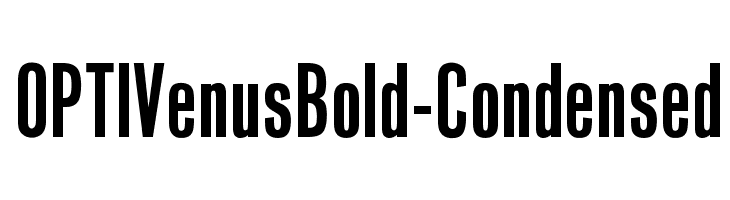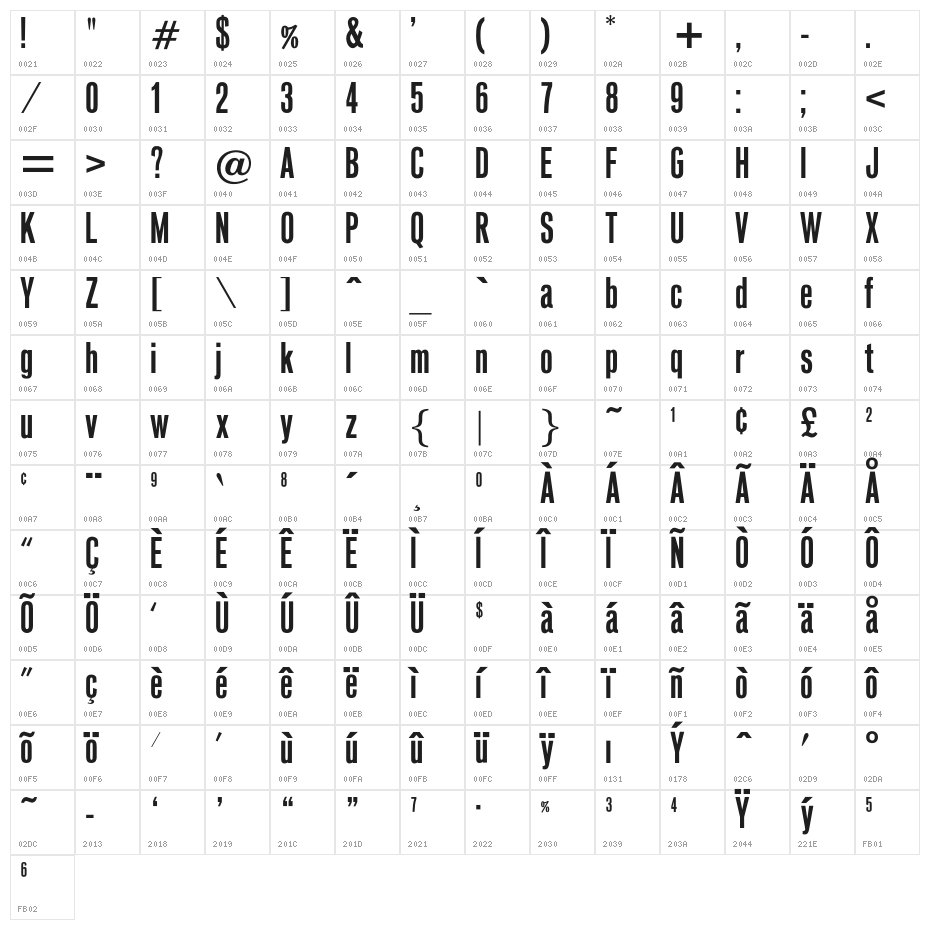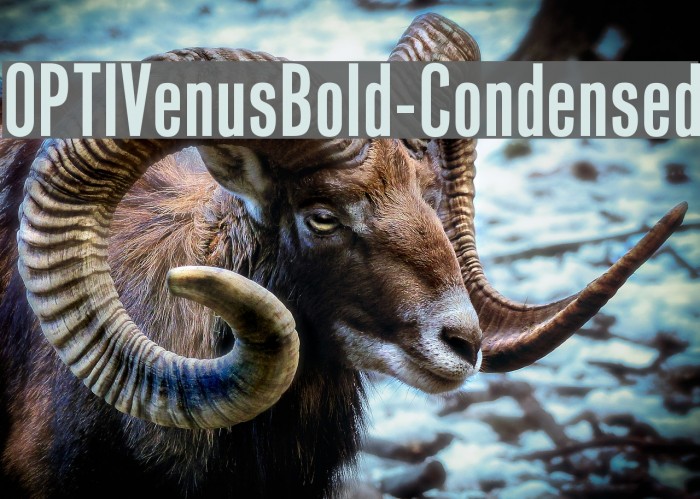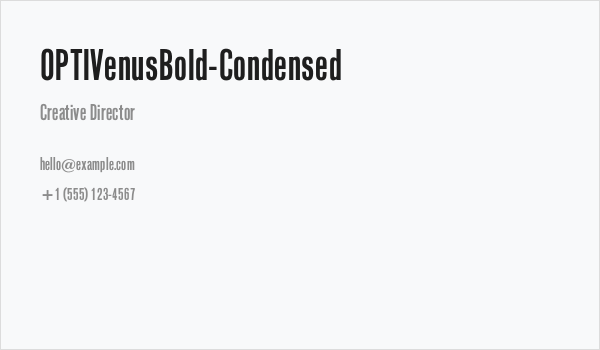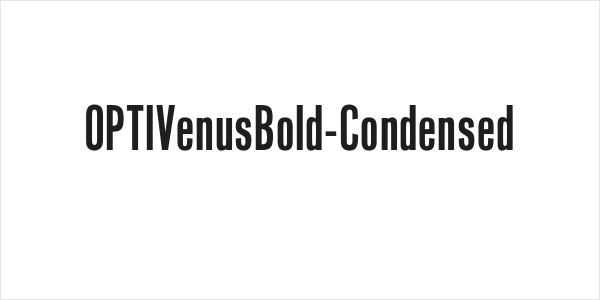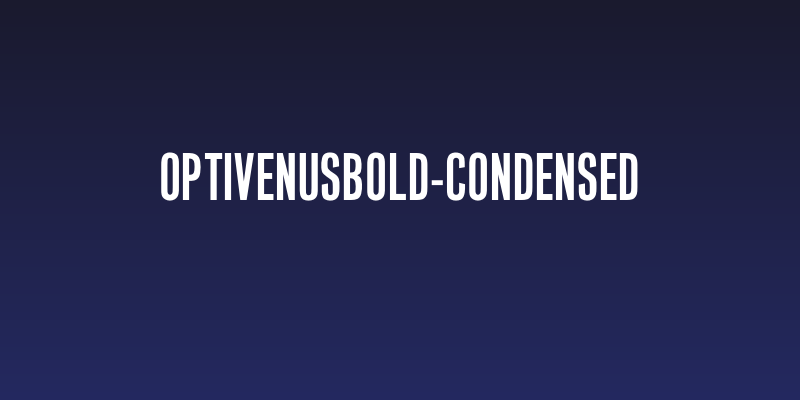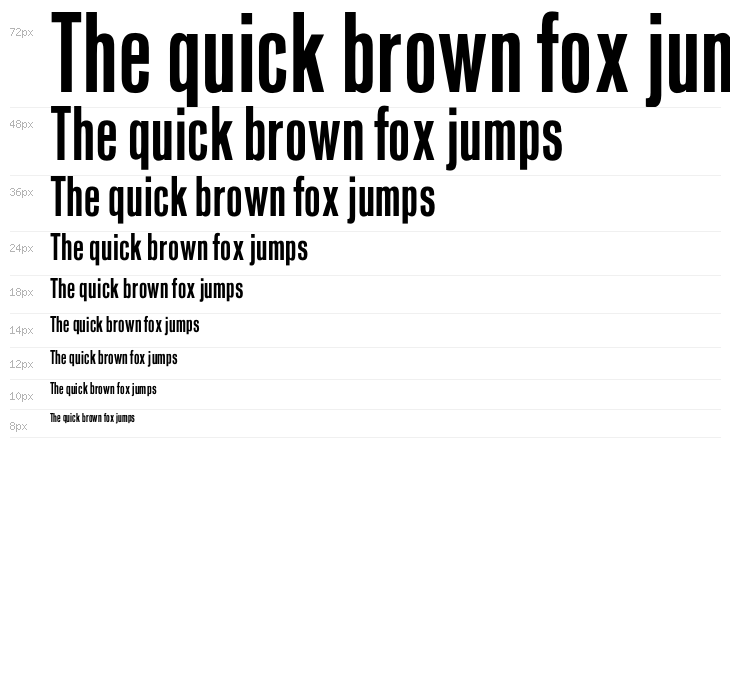
OPTIVenusBold-Condensed Font
OPTIVenusBold-Condensed Description
This typeface features bold, condensed letterforms with a strong, impactful presence. The uppercase and lowercase characters are designed with a uniform stroke width, giving the font a cohesive and modern appearance. The numerals are clear and easily distinguishable, making them suitable for various applications. Special characters are included, maintaining the bold and condensed style throughout. The overall design is clean and straightforward, emphasizing readability and visual impact. This font is ideal for projects that require a strong, assertive look.
| Proposed Projects | Ideal for headlines, posters, branding, and advertising where a strong visual impact is needed. |